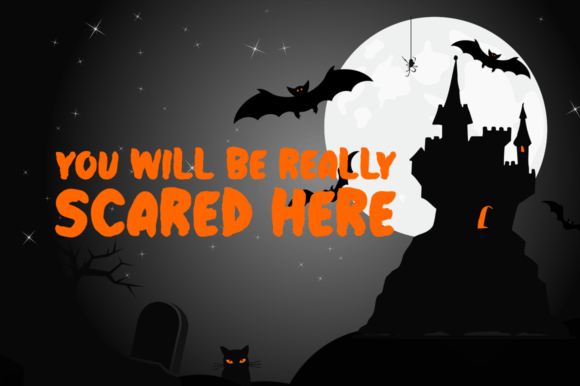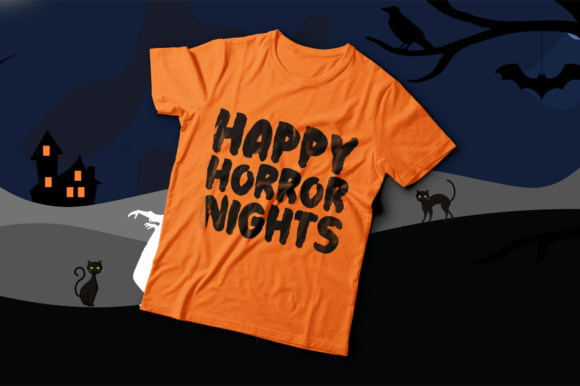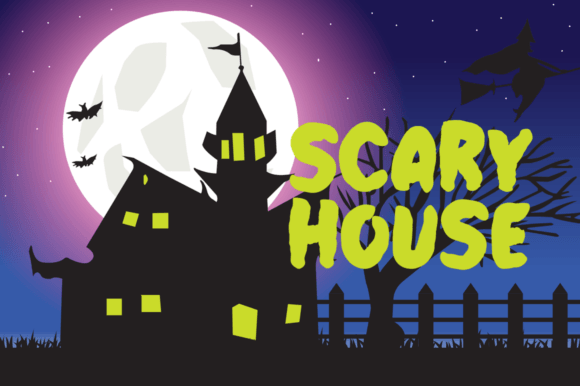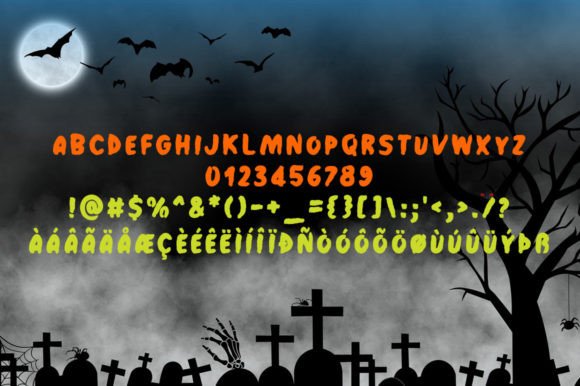
Unleash the Spook: Discover the Feeling Scared Font
As the spookiest time of the year approaches, designers and crafters are on the lookout for the perfect typography to add a dash of eeriness to their projects. Look no further than the Feeling Scared font, a casual and creepy-looking display font that’s sure to send shivers down the spine. In this article, we’ll dive into the world of Feeling Scared, exploring its features, uses, and tips for incorporating it into your Halloween-related projects.
The Feeling Scared Font: A Spooky yet Casual Display Font
Feeling Scared is a unique display font that’s been carefully crafted to evoke a sense of eeriness and playfulness. Its casual, handwritten style makes it perfect for a wide range of applications, from Halloween decorations and party invitations to social media graphics and craft projects. The font’s irregularities and quirks add to its charm, giving it a delightfully spooky feel that’s sure to capture the essence of the Halloween spirit.
Key Features of Feeling Scared Font
- Casual and creepy-looking design: The Feeling Scared font boasts a distinctive, handwritten style that’s both casual and eerie.
- Perfect for Halloween-related projects: This font is specifically designed with Halloween in mind, making it an ideal choice for any spooky project.
- Limited only by your imagination: Feeling Scared is a versatile font that can be used in a wide range of applications, from digital graphics to craft projects.
Using Feeling Scared in Your Projects
So, how can you incorporate the Feeling Scared font into your projects? Here are a few ideas to get you started:
- Halloween party invitations: Create spooky and inviting party invites that set the tone for a howling good time.
- Social media graphics: Add a touch of eeriness to your social media posts and stories with Feeling Scared.
- DIY crafts: Use Feeling Scared to add a personal touch to your Halloween-themed crafts, such as pumpkin carvings, decorations, or gift tags.
- Digital graphics: Incorporate Feeling Scared into your digital graphics, such as Halloween-themed wallpapers, phone cases, or stickers.
Tips for Working with Feeling Scared
To get the most out of Feeling Scared, here are a few tips to keep in mind:
- Experiment with font sizes and colors: Feeling Scared looks great in a variety of font sizes and colors, so don’t be afraid to experiment and find the perfect combination for your project.
- Pair with other fonts: Combine Feeling Scared with other fonts to create a unique and eye-catching design.
- Use it sparingly: While Feeling Scared is a fantastic font, it can be overwhelming if used excessively. Use it sparingly to add a touch of eeriness to your design.
In conclusion, the Feeling Scared font is a fantastic addition to any designer’s or crafter’s toolkit. Its unique blend of casual and creepy styles makes it perfect for a wide range of Halloween-related projects. With its versatility, ease of use, and spooky charm, Feeling Scared is sure to become a go-to font for anyone looking to add a touch of eeriness to their designs. So why wait? Download Feeling Scared today and unleash your creativity!